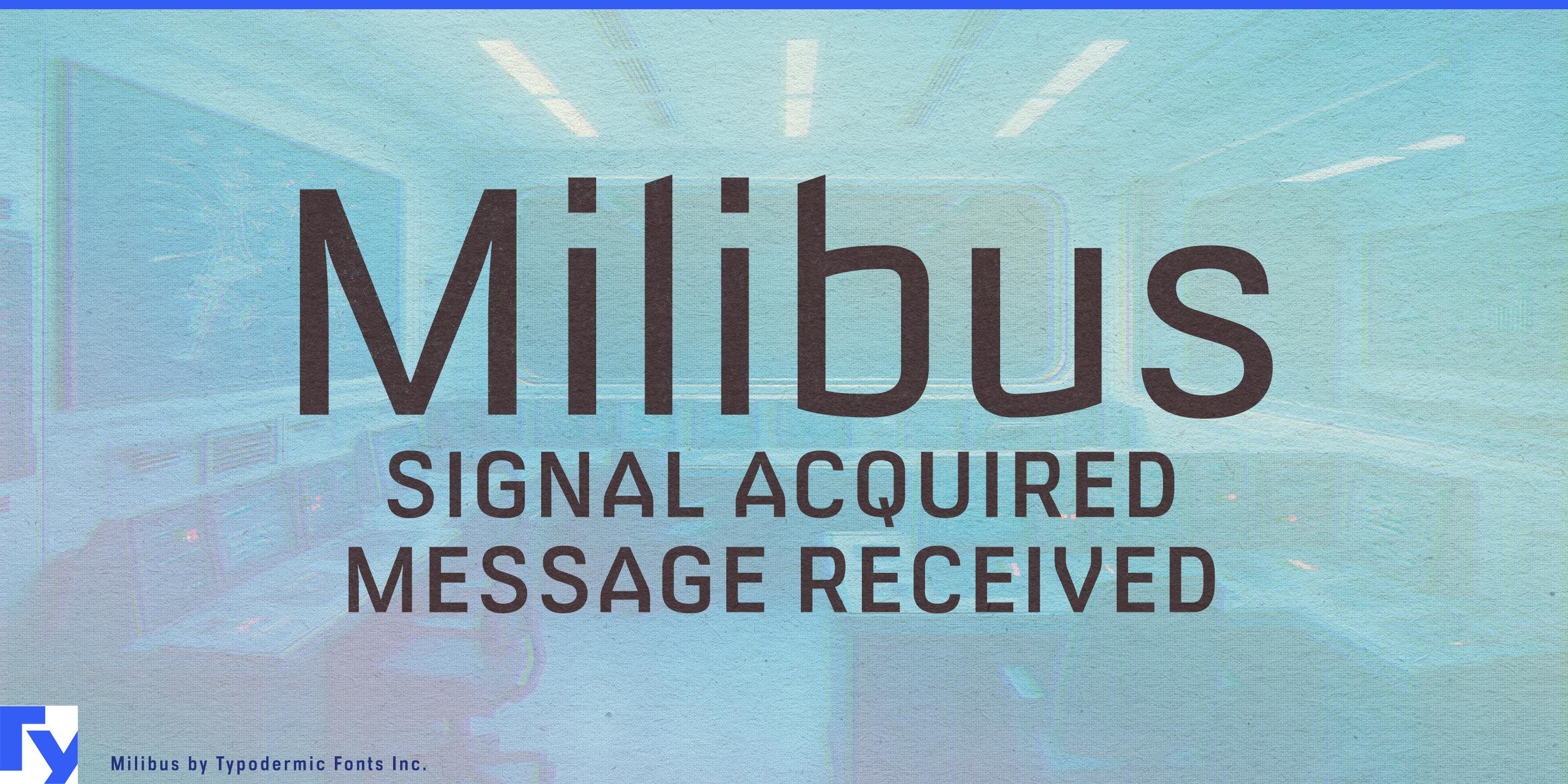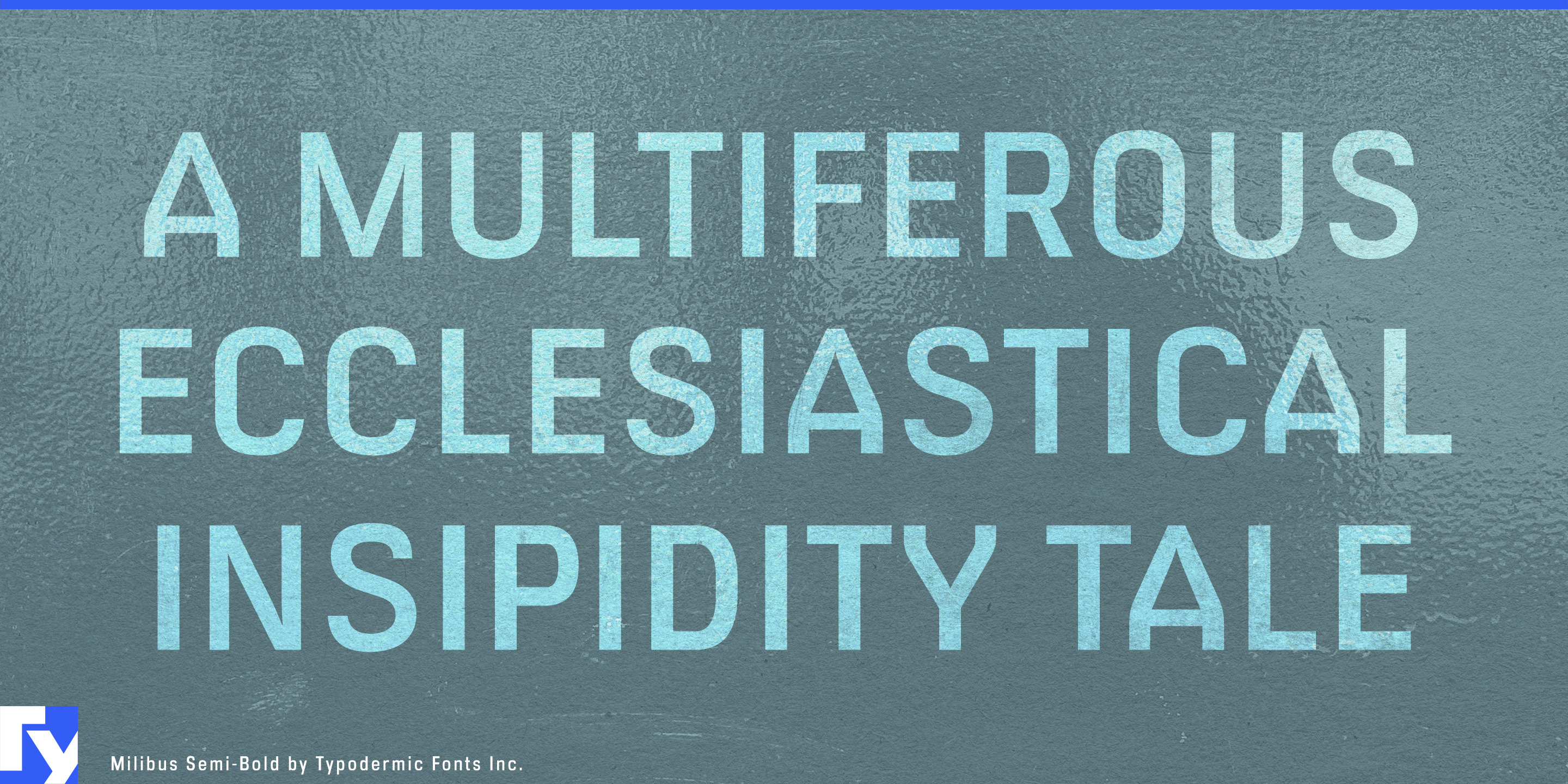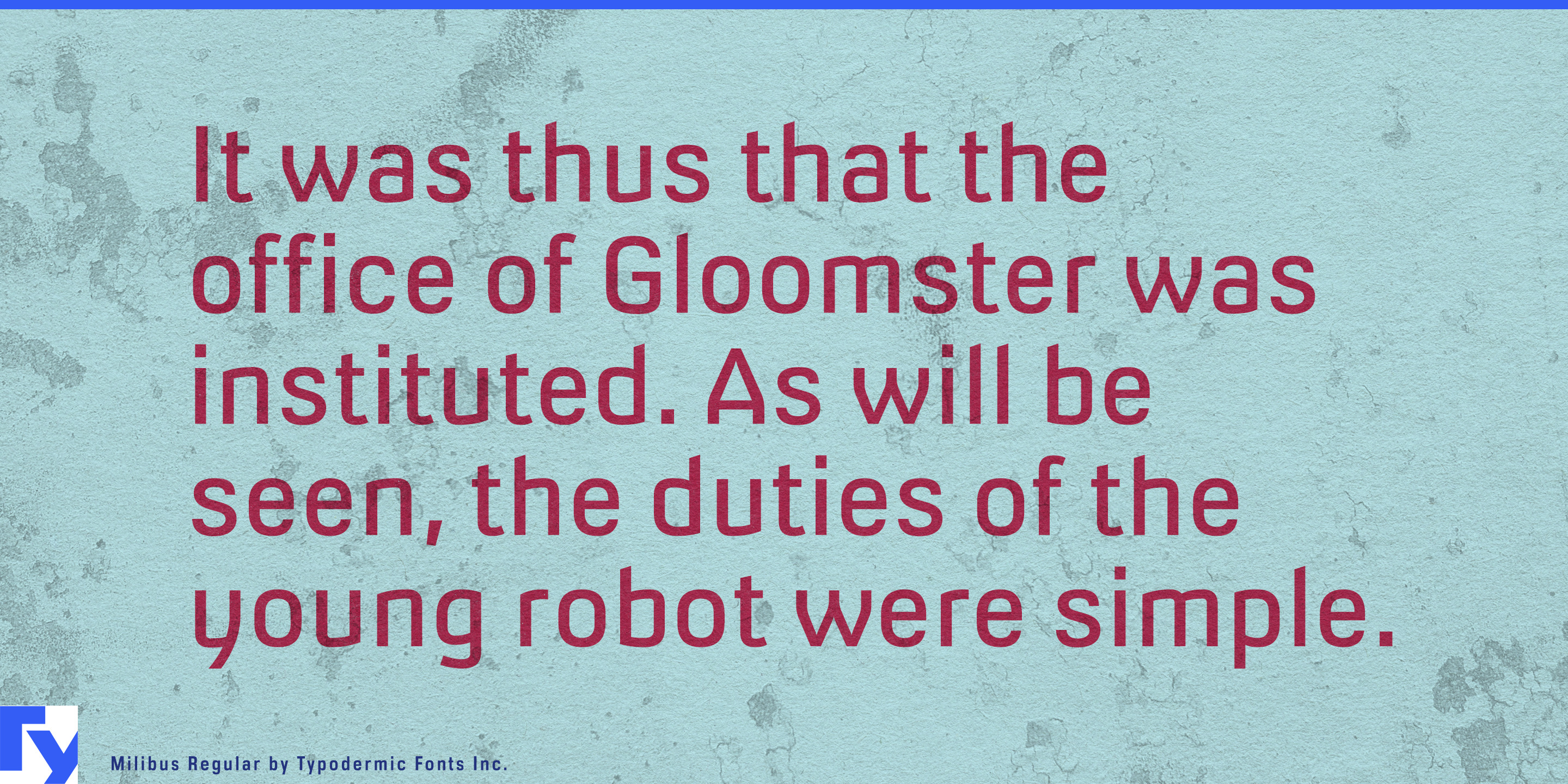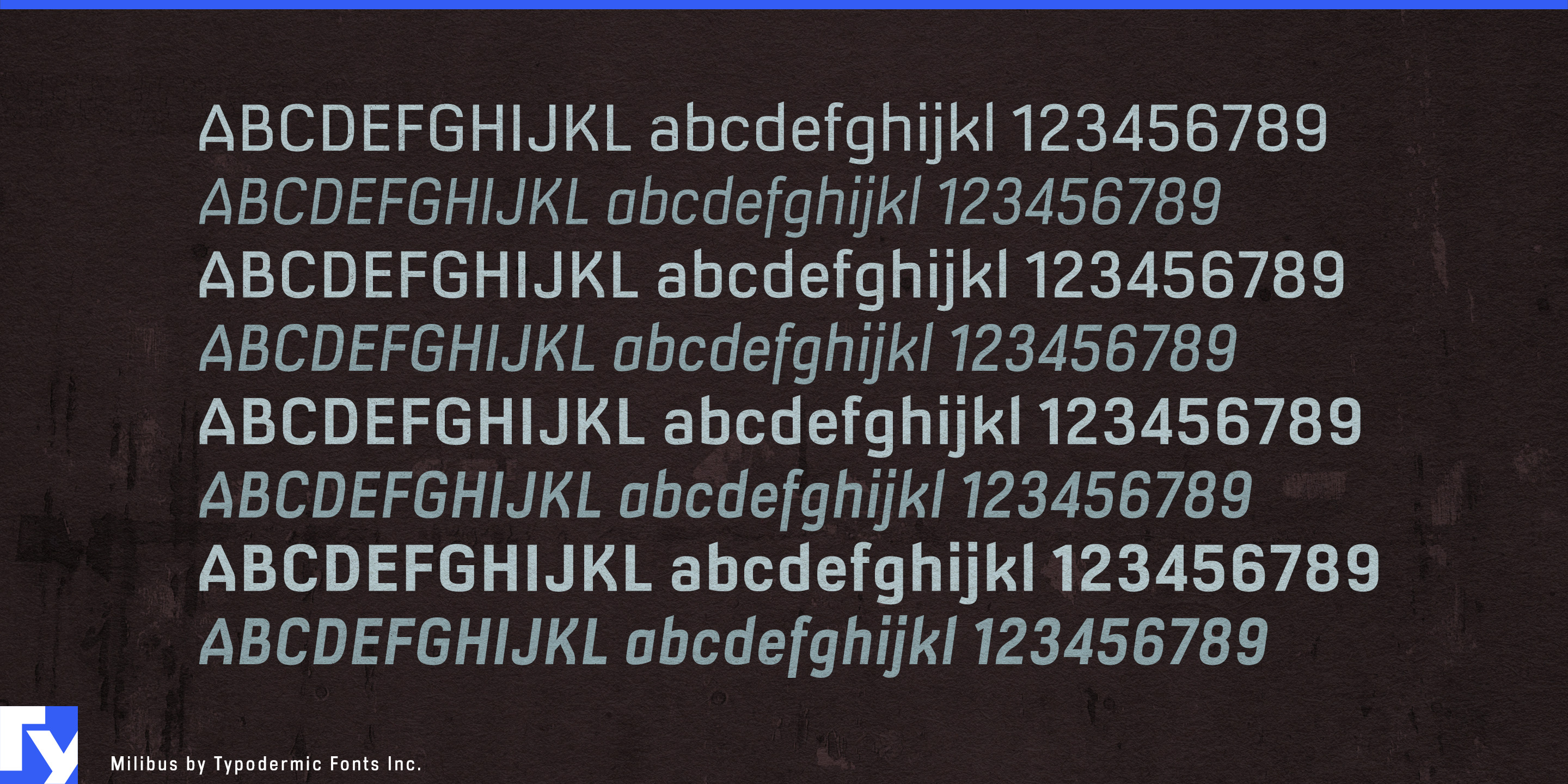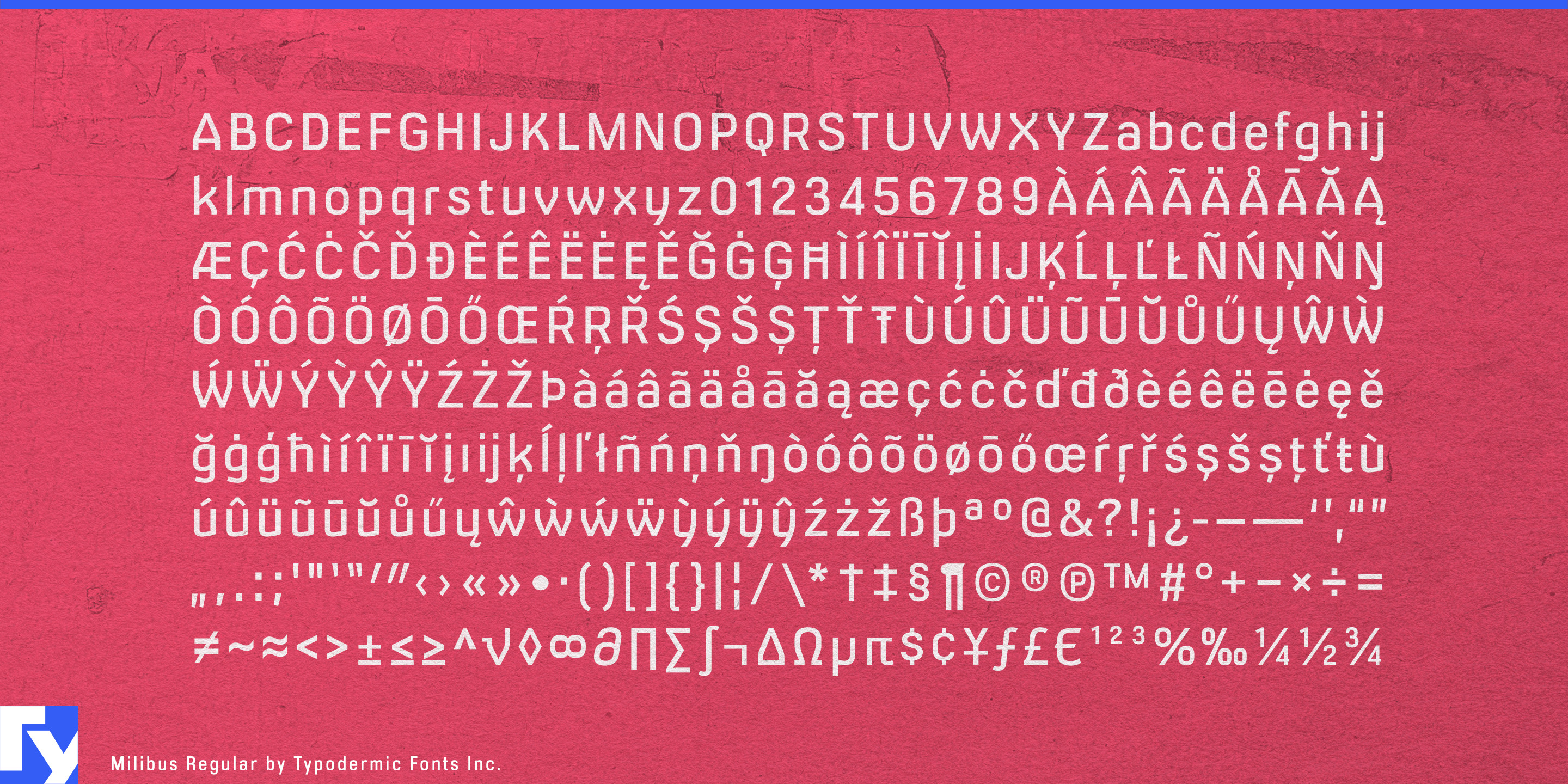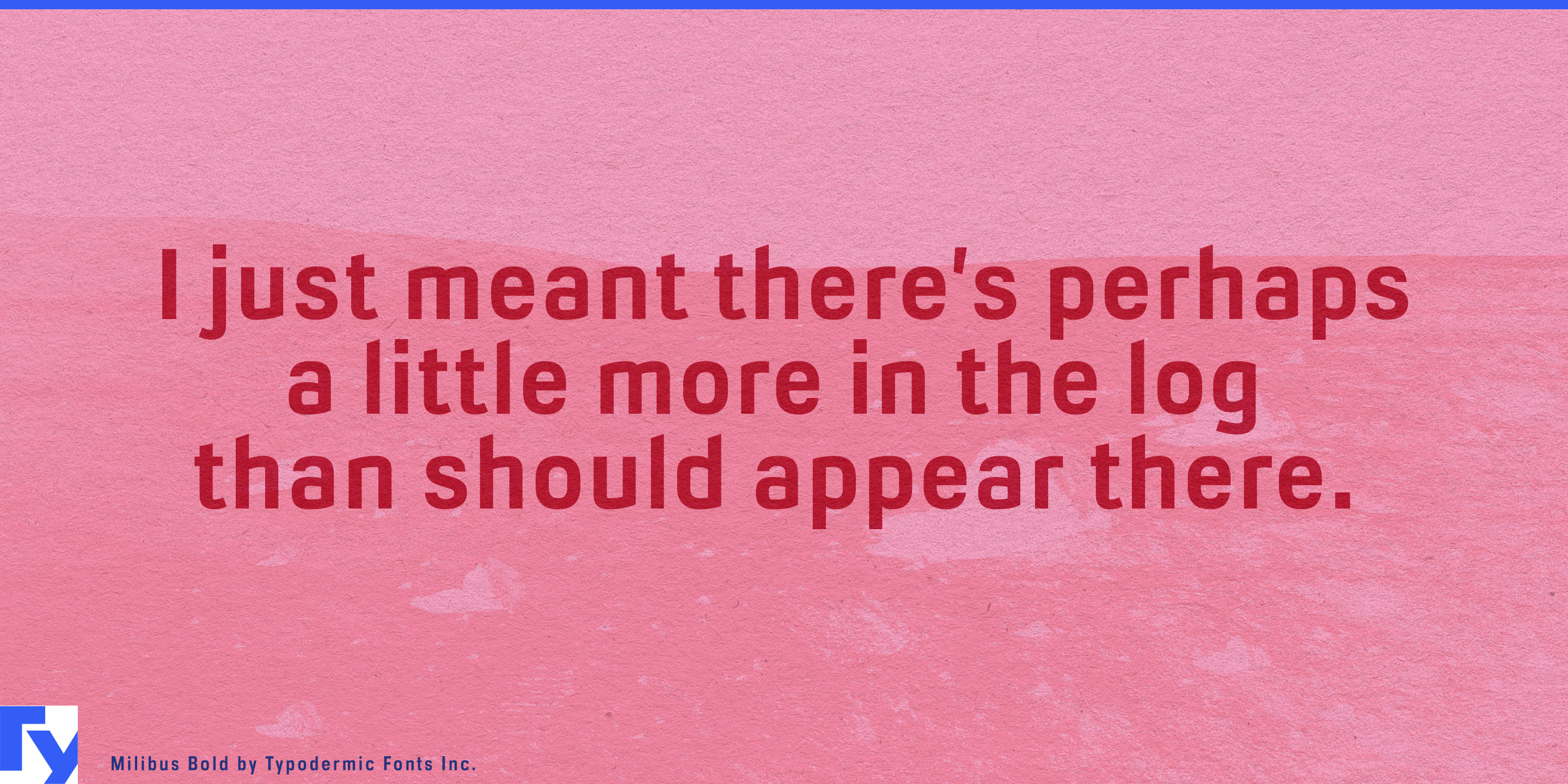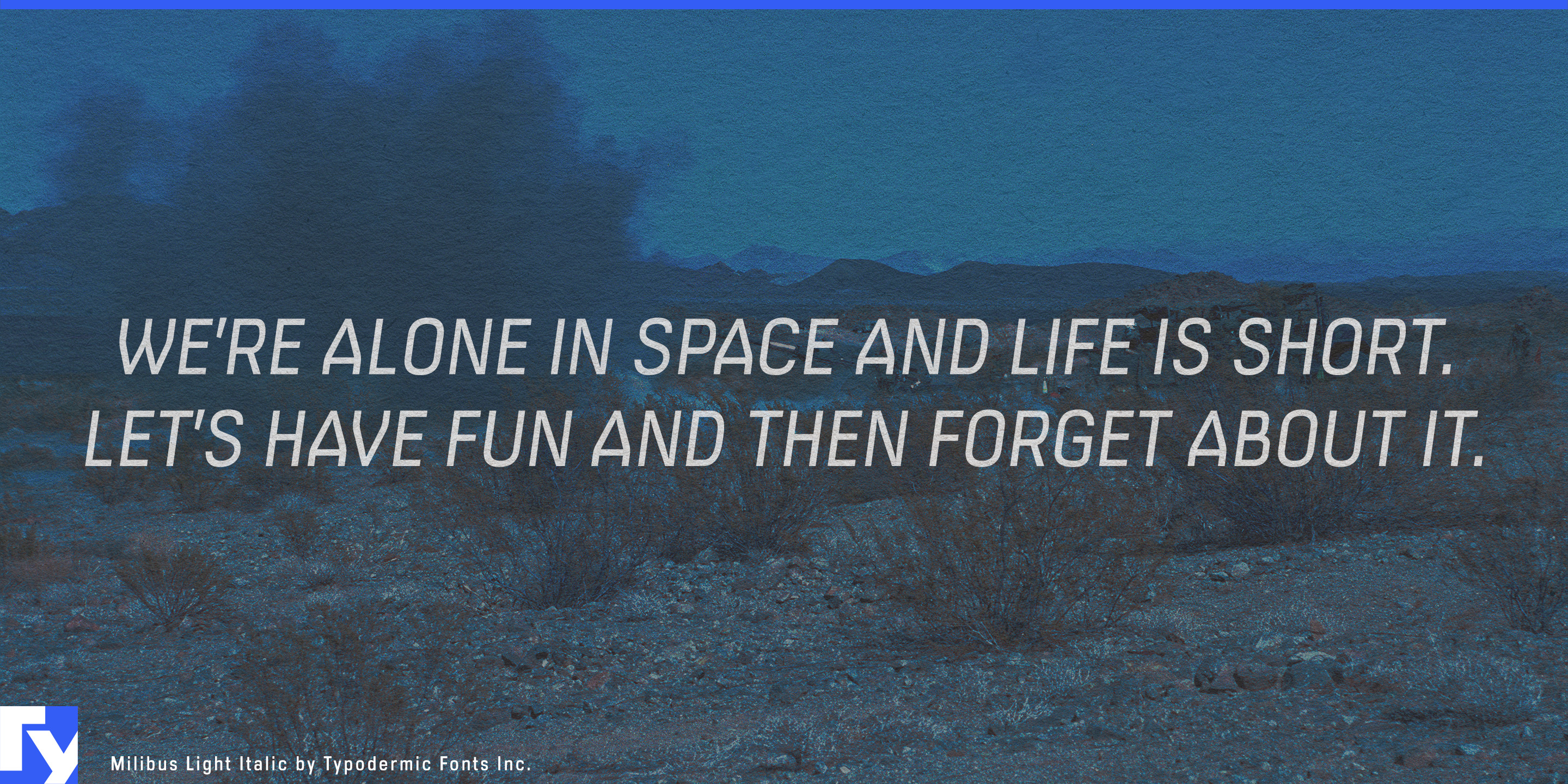
Milibus
Milibus takes the disciplined geometry of DIN and dials it up for a new level of technical clarity. Where DIN is precise, Milibus is precision-optimized. Subtle cuts on the diagonals of letters like A, V, and W trim away visual surplus, saving space and tightening rhythm. It’s a micro-efficiency that adds up, giving text a leaner footprint without sacrificing legibility.
This isn’t decoration—it’s functional design. Each clipped stroke reads as a deliberate, engineered choice, echoing the mindset of aerospace schematics, precision instruments, and optimized code. In a world of “good enough” geometry, Milibus is the upgrade: a technical standard tuned for maximum output. Available in three weights plus italics, Milibus is equally at home in mission-critical dashboards, multilingual wayfinding, or scientific publications. Its efficient forms handle dense information gracefully while keeping the message sharp, modern, and unmistakably engineered.
Choose Milibus when you want your typography to work as hard as your technology. It’s DIN with subtle gain-clipping—the visual equivalent of turning up the performance without breaking the signal.